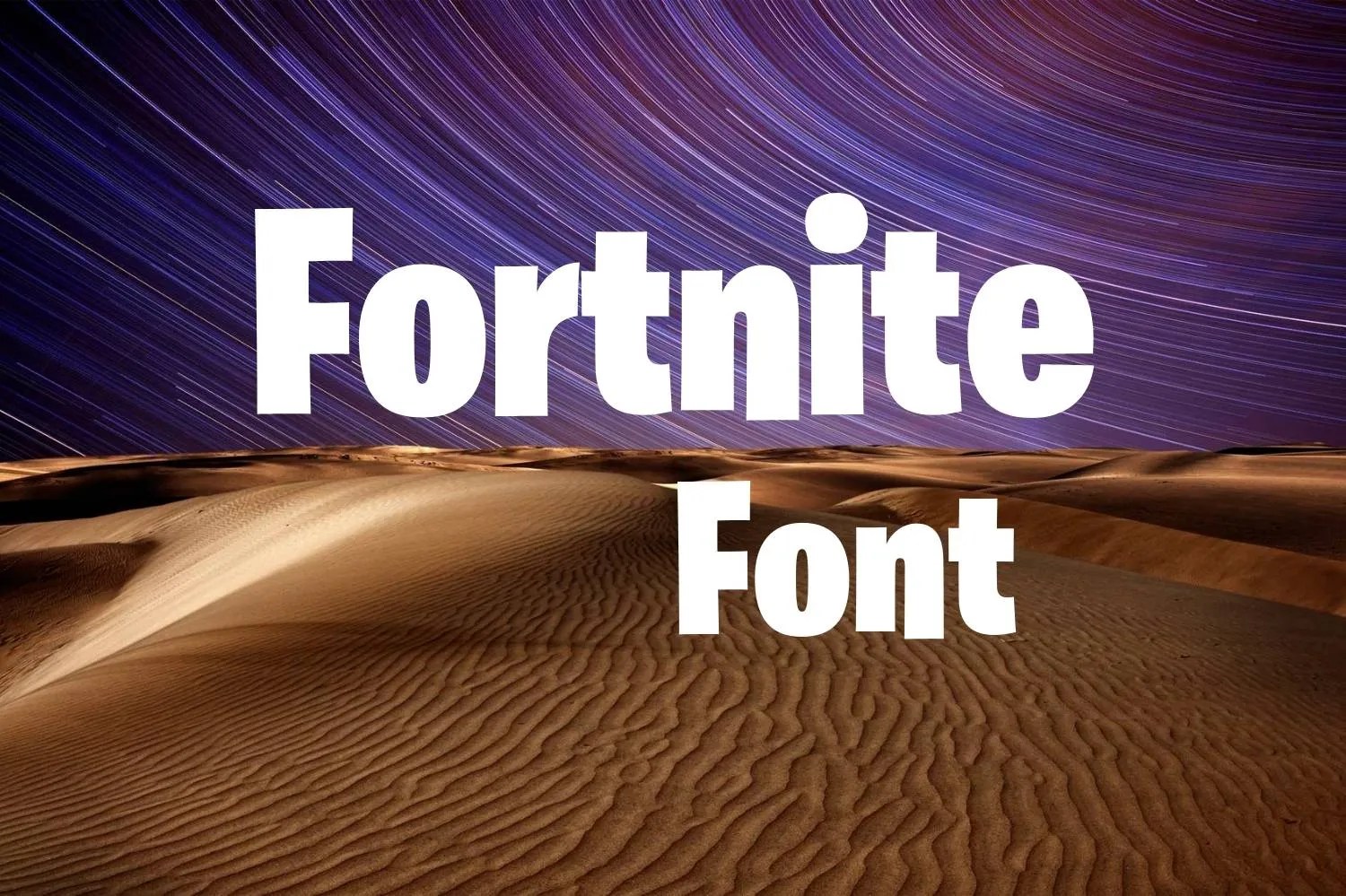
What Is The Fortnite Font On Dafont . The font used for the video game logo is burbank big condensed black designed by tal leming. I know that the fortnite font is burbank big condensed black, and i know it was also used on the china anne mcclayne album,. The font reminiscent of fortnite’s thematic character can be found on various font repositories online. Fortnite font is an extremely recognizable typeface around the world, and was employed in creating its iconic logo when fortnite game launched in 2017. Archive of freely downloadable fonts. Fortnite developed by epic games and people can fly was released on july 25, 2017, as a paid early access game. However, embrace caution, not all sources are equal; Browse by alphabetical listing, by style, by author or by popularity. A guy used it for his youtube video thumbnail. Anyone know what is this font? Burbank is a fun typeface available in 20 styles:.
What Is The Fortnite Font On Dafont Fortnite font is an extremely recognizable typeface around the world, and was employed in creating its iconic logo when fortnite game launched in 2017. The font reminiscent of fortnite’s thematic character can be found on various font repositories online. I know that the fortnite font is burbank big condensed black, and i know it was also used on the china anne mcclayne album,. The font used for the video game logo is burbank big condensed black designed by tal leming. Archive of freely downloadable fonts. Anyone know what is this font? A guy used it for his youtube video thumbnail. However, embrace caution, not all sources are equal; Browse by alphabetical listing, by style, by author or by popularity. Burbank is a fun typeface available in 20 styles:. Fortnite developed by epic games and people can fly was released on july 25, 2017, as a paid early access game. Fortnite font is an extremely recognizable typeface around the world, and was employed in creating its iconic logo when fortnite game launched in 2017.
Fortnite Font Text Effect and Logo Design Font What Is The Fortnite Font On Dafont Anyone know what is this font? Fortnite font is an extremely recognizable typeface around the world, and was employed in creating its iconic logo when fortnite game launched in 2017. The font used for the video game logo is burbank big condensed black designed by tal leming. The font reminiscent of fortnite’s thematic character can be found on various font. What Is The Fortnite Font On Dafont.
Fortnite Font Text Effect and Logo Design Font What Is The Fortnite Font On Dafont I know that the fortnite font is burbank big condensed black, and i know it was also used on the china anne mcclayne album,. Browse by alphabetical listing, by style, by author or by popularity. The font used for the video game logo is burbank big condensed black designed by tal leming. However, embrace caution, not all sources are equal;. What Is The Fortnite Font On Dafont.
Fortnite Font Dafont Free What Is The Fortnite Font On Dafont Fortnite font is an extremely recognizable typeface around the world, and was employed in creating its iconic logo when fortnite game launched in 2017. However, embrace caution, not all sources are equal; Fortnite developed by epic games and people can fly was released on july 25, 2017, as a paid early access game. Browse by alphabetical listing, by style, by. What Is The Fortnite Font On Dafont.
Fortnite Name. Fonts What Is The Fortnite Font On Dafont Fortnite font is an extremely recognizable typeface around the world, and was employed in creating its iconic logo when fortnite game launched in 2017. Browse by alphabetical listing, by style, by author or by popularity. However, embrace caution, not all sources are equal; Fortnite developed by epic games and people can fly was released on july 25, 2017, as a. What Is The Fortnite Font On Dafont.
How to Get the Fortnite Font on Your PC YouTube What Is The Fortnite Font On Dafont Archive of freely downloadable fonts. The font reminiscent of fortnite’s thematic character can be found on various font repositories online. The font used for the video game logo is burbank big condensed black designed by tal leming. A guy used it for his youtube video thumbnail. Anyone know what is this font? Fortnite developed by epic games and people can. What Is The Fortnite Font On Dafont.
33 Top Photos Fortnite Font In Dafont Hola Alguien Sabe Cual Es Esta What Is The Fortnite Font On Dafont Anyone know what is this font? Fortnite developed by epic games and people can fly was released on july 25, 2017, as a paid early access game. Browse by alphabetical listing, by style, by author or by popularity. Archive of freely downloadable fonts. The font used for the video game logo is burbank big condensed black designed by tal leming.. What Is The Fortnite Font On Dafont.
Fortnite Font Free Download What Is The Fortnite Font On Dafont Fortnite font is an extremely recognizable typeface around the world, and was employed in creating its iconic logo when fortnite game launched in 2017. A guy used it for his youtube video thumbnail. The font reminiscent of fortnite’s thematic character can be found on various font repositories online. Archive of freely downloadable fonts. I know that the fortnite font is. What Is The Fortnite Font On Dafont.